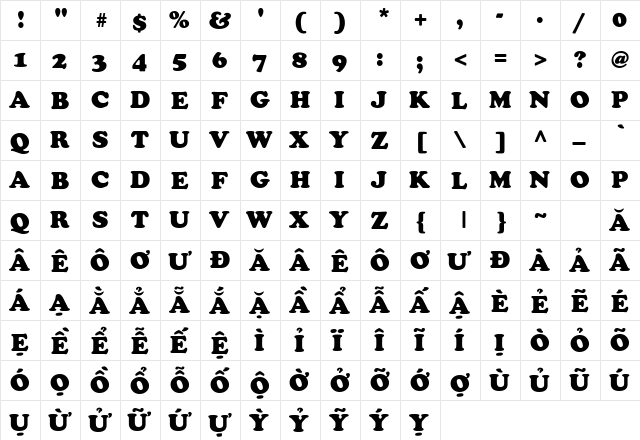
.VnCooperH Regular Font Preview
.VnCooperH Regular
.VnCooperH Regular Font Details
Design Context for .VnCooperH Typeface
.VnCooperH takes a measured approach to typography — its balanced proportions and neutral character make it a reliable workhorse for both digital and print work.